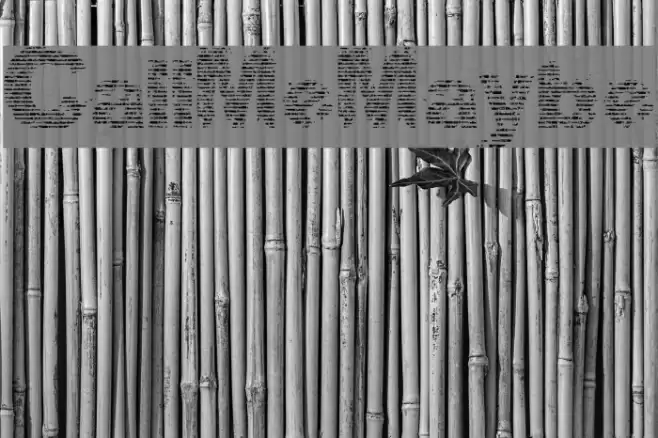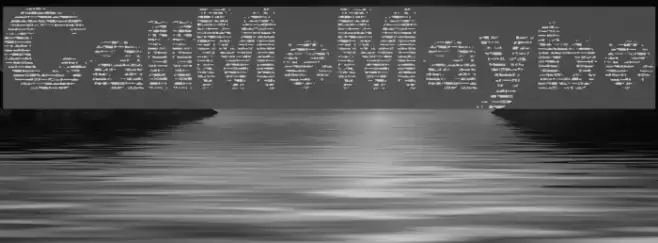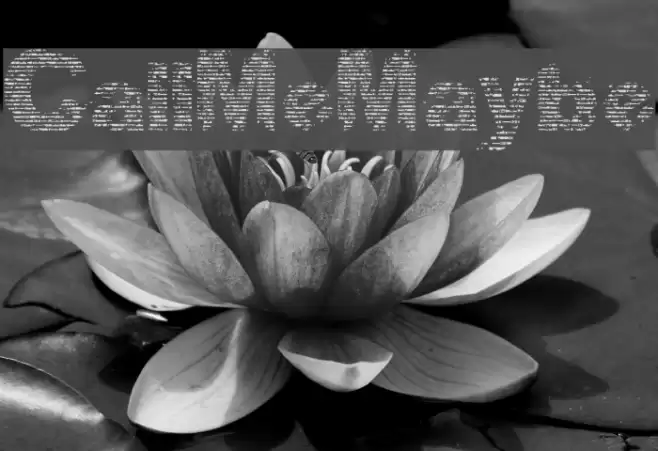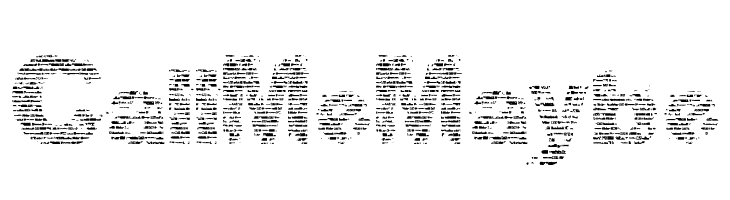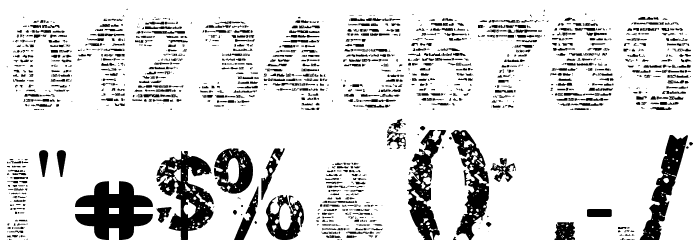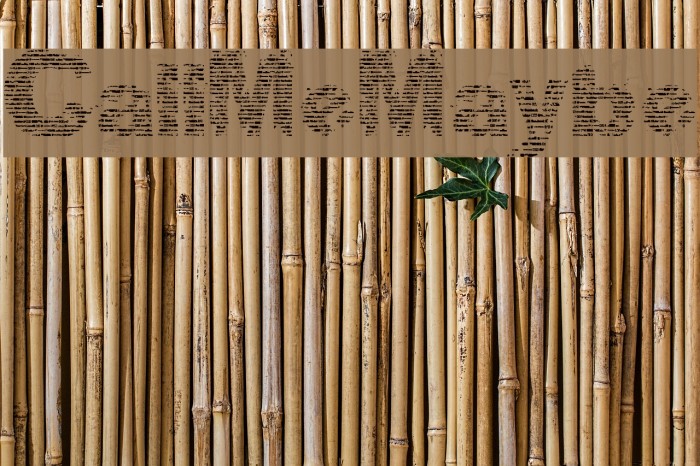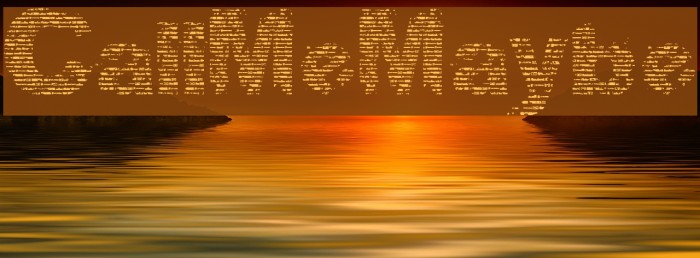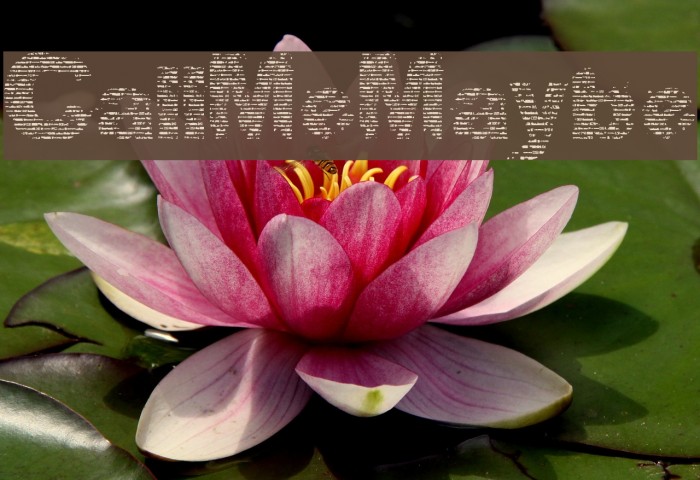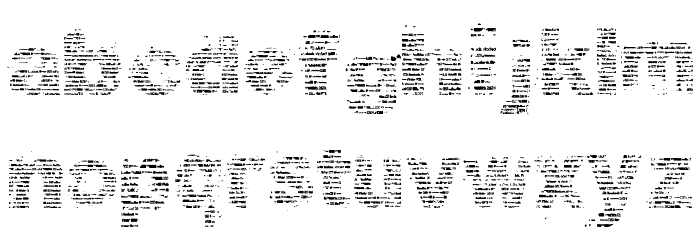
CallMeMaybe Font
CallMeMaybe Description
This font features a distressed, textured appearance that gives it a rugged and worn look. The characters are bold and uppercase letters are slightly wider than the lowercase ones, maintaining a consistent height. The numbers and special characters follow the same distressed style, adding a unique touch to the overall design. The texture creates a sense of movement and dynamism, making it suitable for projects that require a bold statement. The font's irregularities and rough edges contribute to its vintage and industrial feel, making it ideal for creative and artistic applications.
A distressed, textured font with a rugged, vintage look from Distorted Eroded fonts.
- Proposed Projects: Ideal for posters, album covers, branding for rustic or industrial-themed products, and creative design projects.
- Overall Style: Vintage